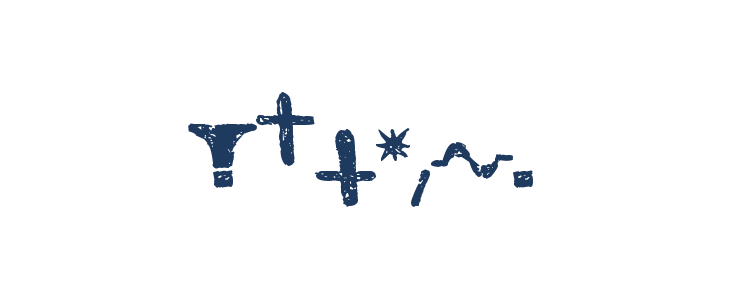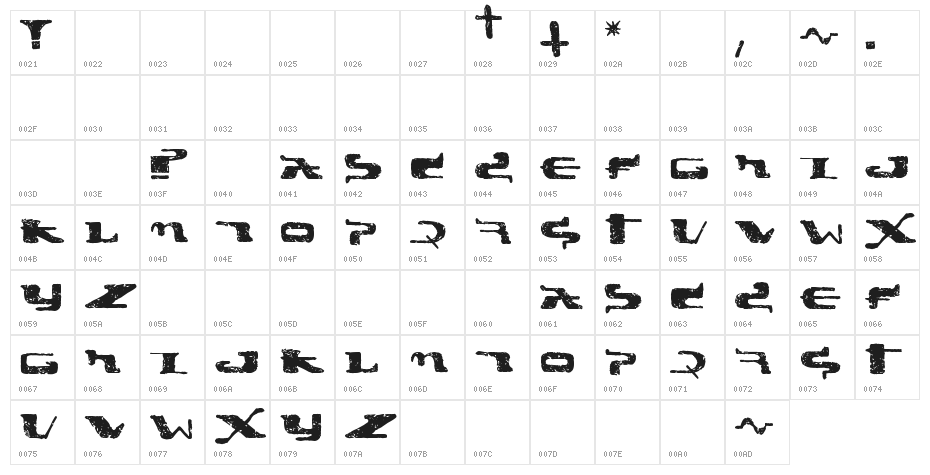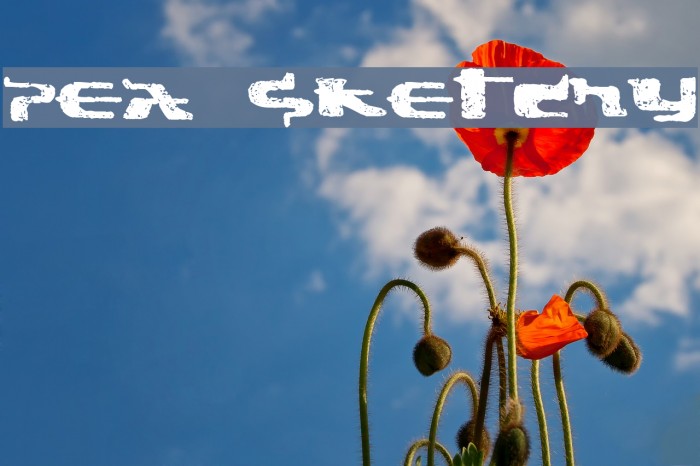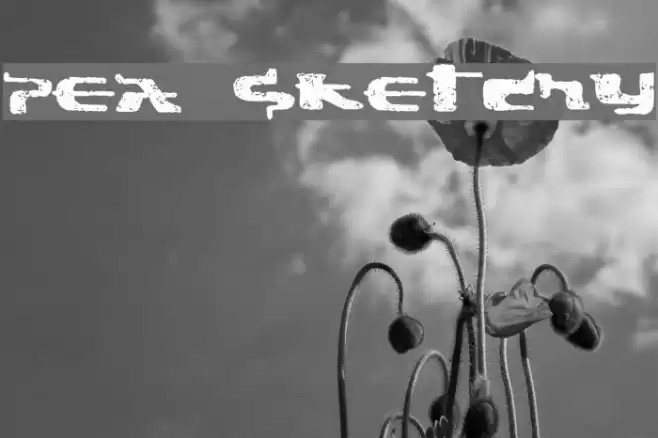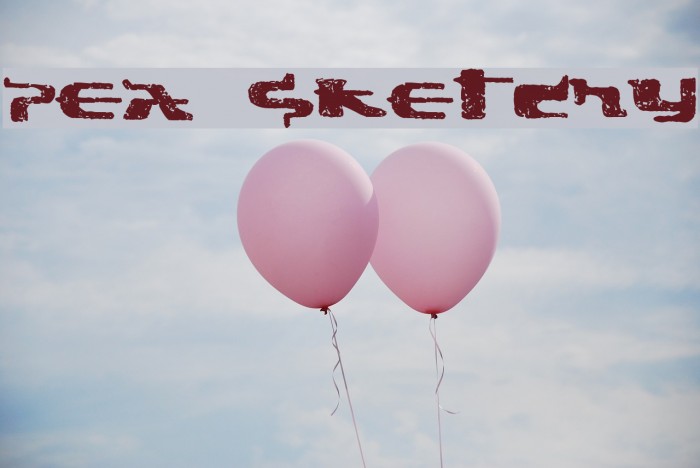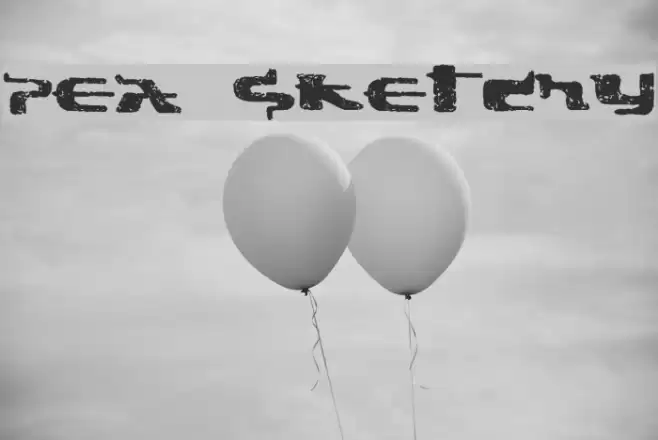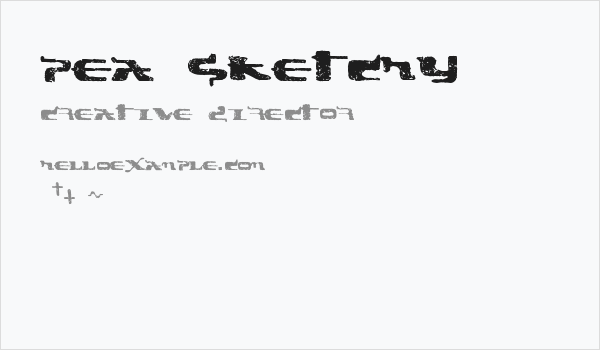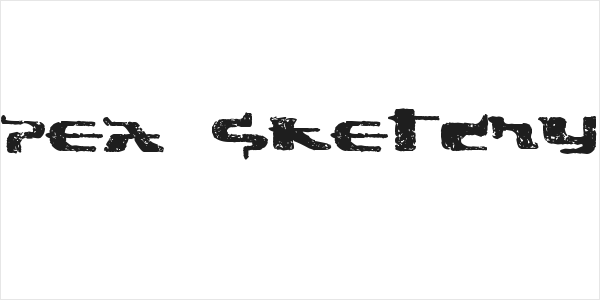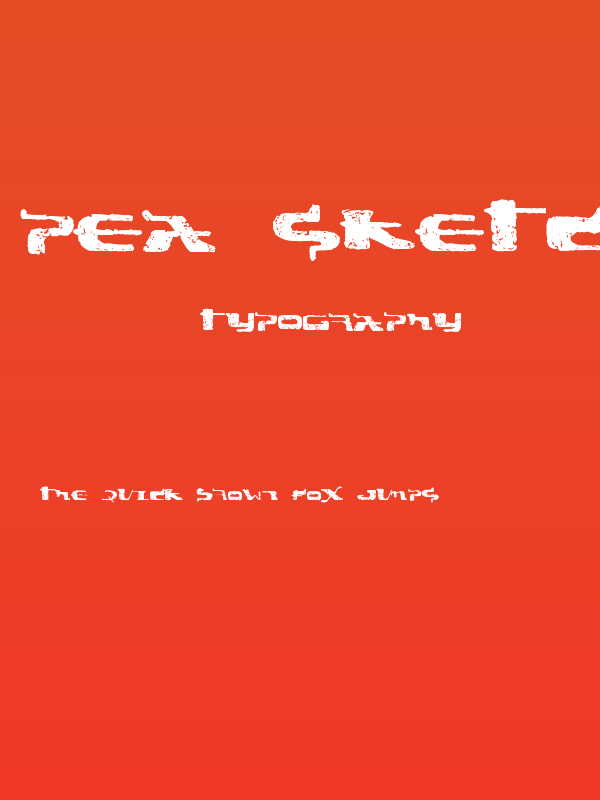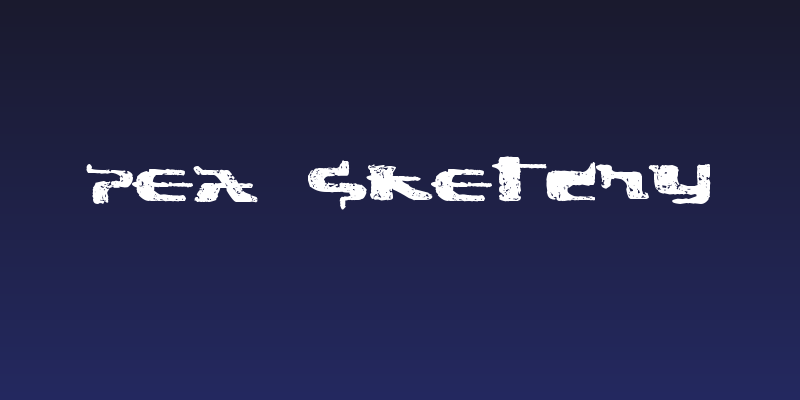
Pea Sketchy Font
Pea Sketchy Description
This font features a rough, textured appearance reminiscent of hand-drawn sketches. Each character is uniquely distressed, giving it a grunge and artistic feel. The letters are bold and slightly irregular, adding to the handmade aesthetic. The uppercase and lowercase letters maintain a consistent style, with jagged edges and uneven strokes. The numbers and special characters follow the same design, ensuring a cohesive look across all elements. This font is ideal for projects that require a raw, edgy vibe, such as album covers, posters, or creative branding.
| Proposed Projects | Album covers, posters, creative branding, artistic projects. |